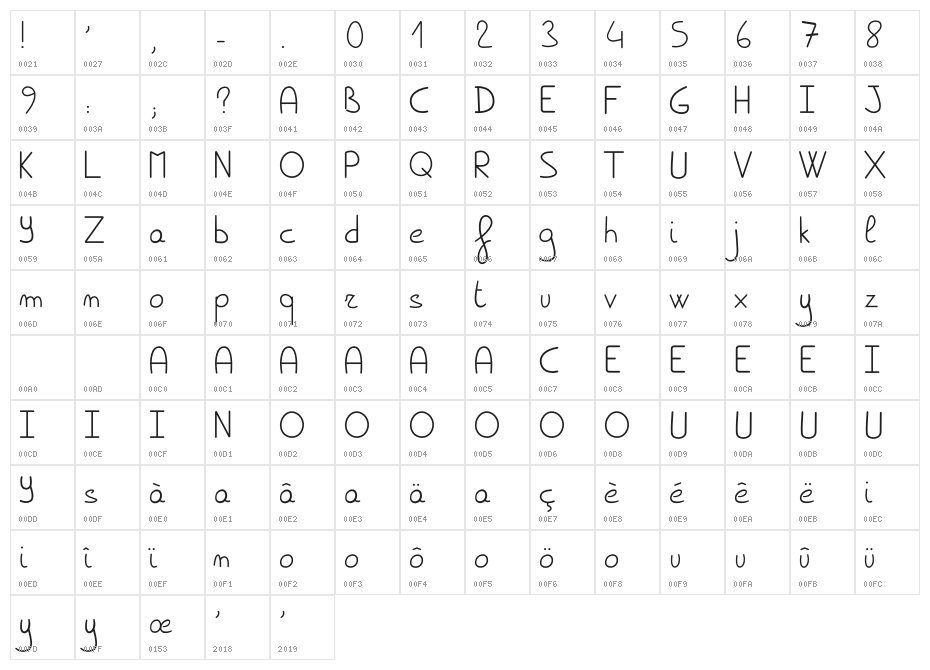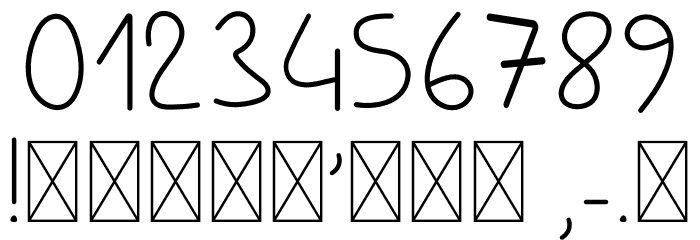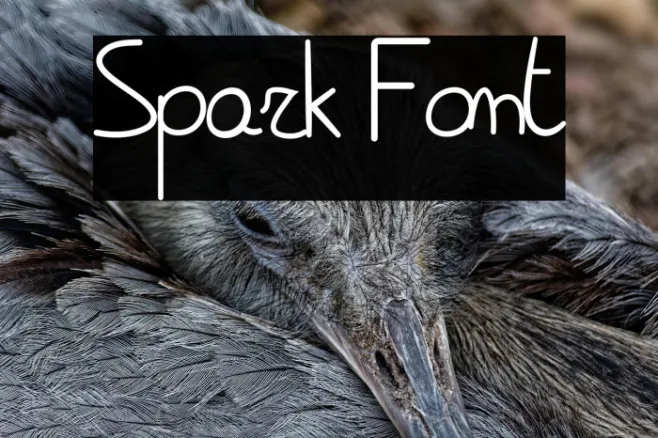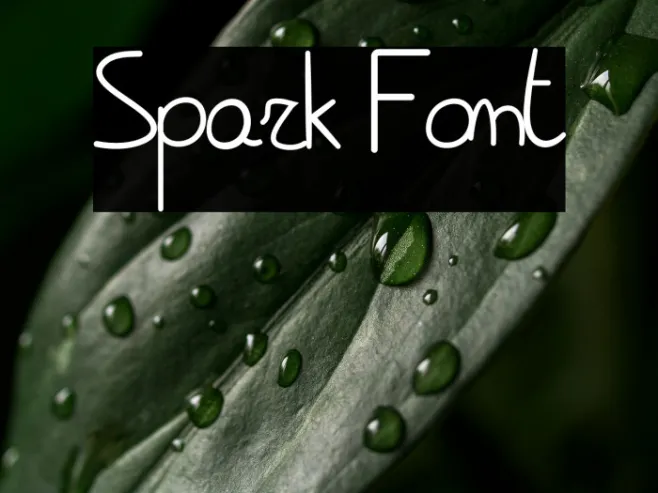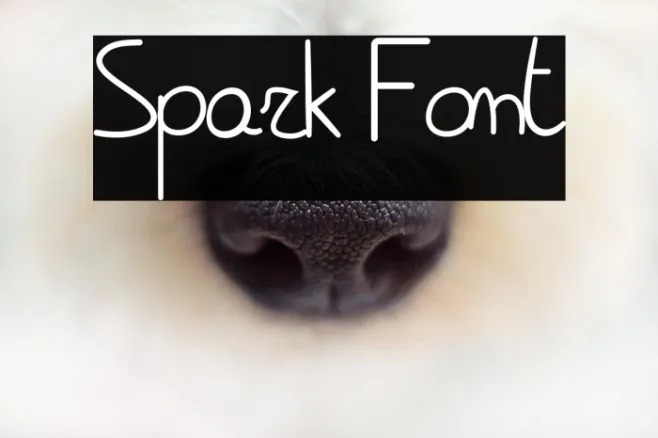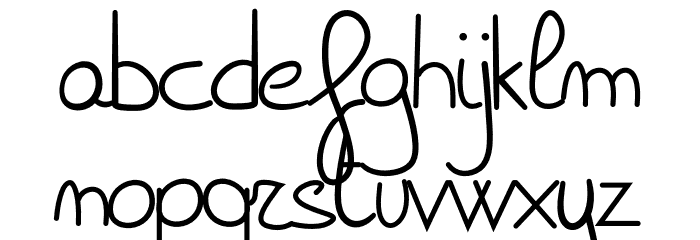
Spark Font
Spark Description
This font features a playful and whimsical design, characterized by its rounded and smooth letterforms. The uppercase letters are tall and narrow, with a consistent stroke width that gives them a clean and modern appearance. The lowercase letters are more fluid, with some characters like 'g' and 'j' having distinctive loops that add a touch of elegance. The numerals are consistent with the overall style, maintaining the same rounded and smooth characteristics. Special characters are included, though some appear as placeholders, suggesting a focus on the primary alphabet and numerals. This font is suitable for projects that require a friendly and approachable aesthetic.
| Proposed Projects | Ideal for children's books, playful branding, greeting cards, and casual invitations. |